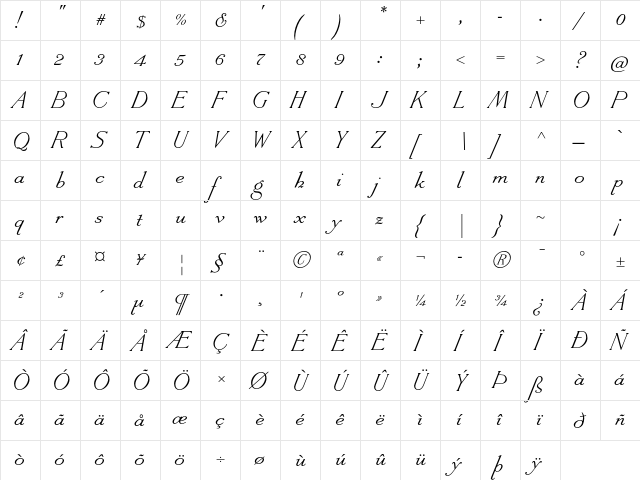
Slanted Antique Roman Std Regular
Design Context for Slanted Antique Roman Std Typeface
Slanted Antique Roman Std wears its vintage influences proudly, with letterforms that recall mid-century signage, classic packaging, and nostalgia-driven design. The slanted form adds forward momentum and visual energy.
Ideal for diner signage, record shop branding, 70s/80s-themed projects, and heritage product labels.
Font Pairing: Combine Slanted Antique Roman Std with a simple slab or neutral sans — period-accurate companions reinforce the vintage feel without competing for attention.
Pro Tip: Lean into Slanted Antique Roman Std's period character by pairing it with aged paper textures, muted colour palettes, and vintage illustration styles.